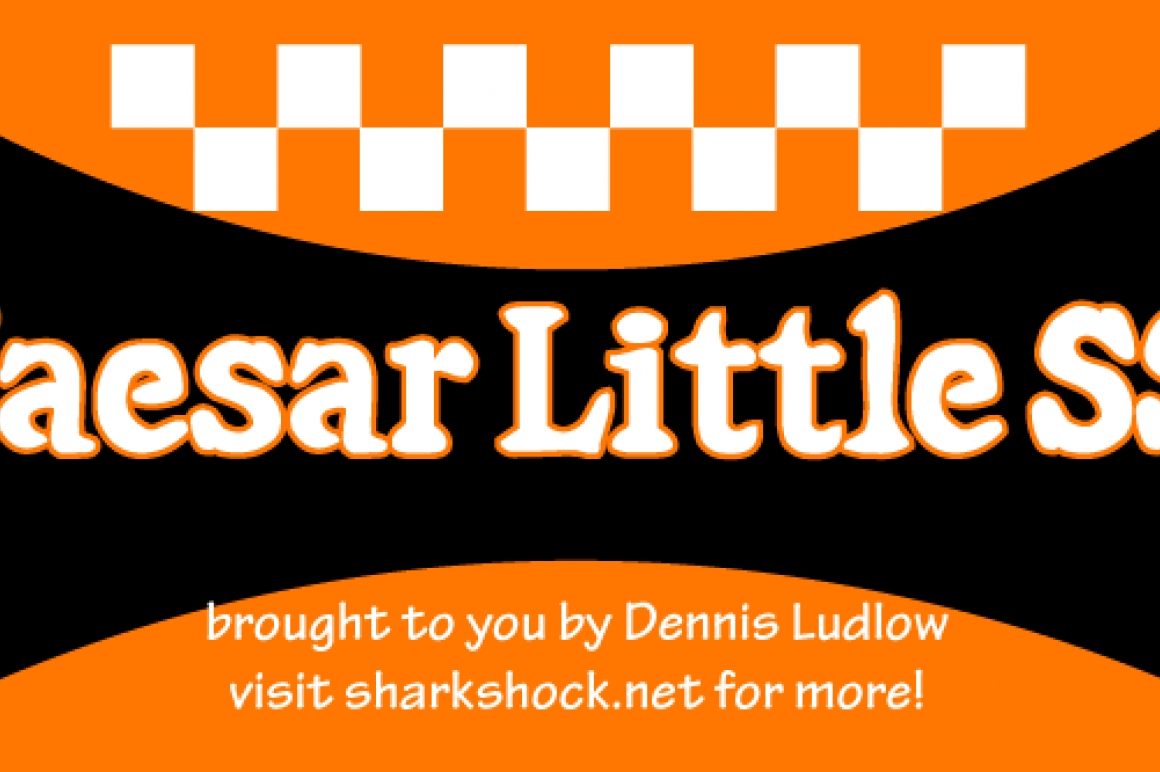
Caesar Little SS
Hi there font fans. Hope you're hungry for a hot slice. In this 2.0 update kerning has been added and several characters were redrawn to better resemble it's inspiration. This set contains
letters, numbers, and a good deal of punctuation. The glyphs are tightly tracked on purpose. This font is free for personal use only. Feel free to redistribute this as long as the readme file